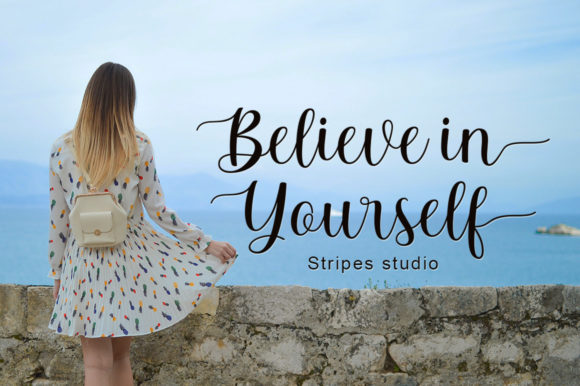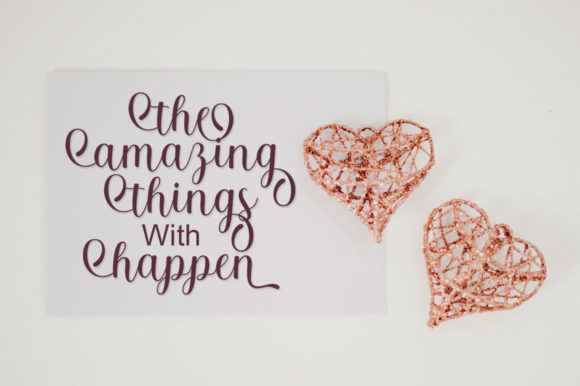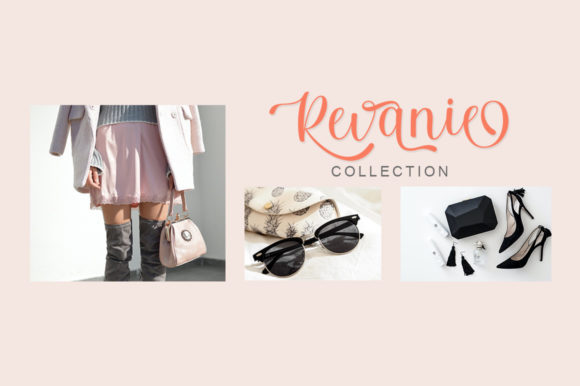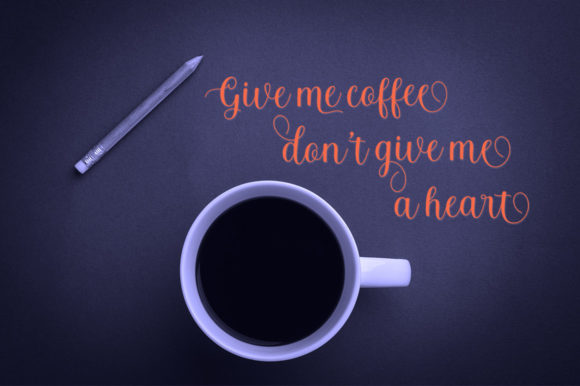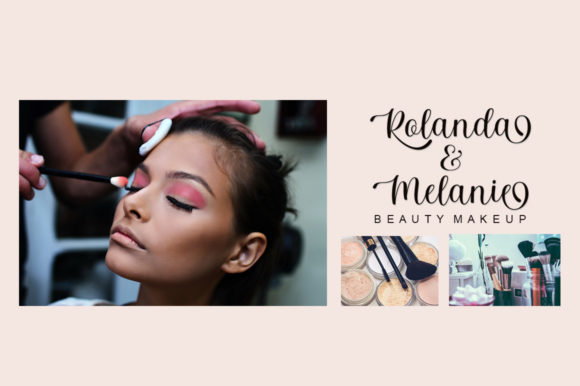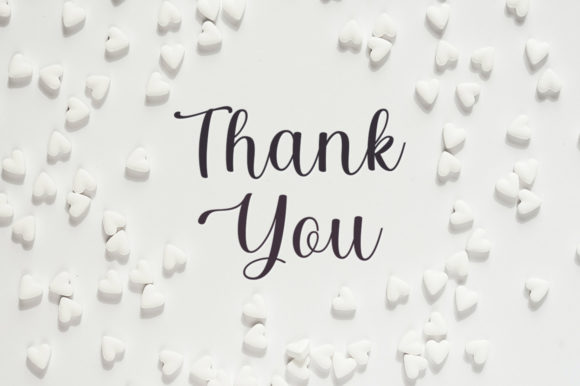
Introduction to Revanie Font
Have you ever found yourself stuck on a creative project, searching for the perfect font to bring your vision to life? The hours tick by, and still, that perfect combination of elegance and sophistication eludes you. But what if I told you that there’s a font that can elevate your design to new heights? Welcome to the world of Revanie Font, a stunning script font that embodies the perfect blend of classic calligraphy and modern style.
As a designer, you understand the importance of a high-quality font in making your project shine. Revanie Font is designed to add a touch of sophistication to any design, whether it’s a logo, a brochure, or a social media graphic. With its balanced and varied strokes, this font is sure to captivate your audience and leave a lasting impression. And the best part? It’s available for free download, making it a valuable resource for designers of all levels.
Key Features of Revanie Font
• High-quality design resource ideal for creative projects
• Unique, modern font style suitable for a wide range of creative applications
Honest Review: Revanie Font
As a designer, I’m always on the lookout for high-quality fonts that can elevate my creative projects. The Revanie Font is one such find that has impressed me with its unique style and versatility.
What works well: ✨ The Revanie Font has a beautiful, modern design that’s perfect for a wide range of creative projects, from digital products to print materials. Its clean lines and elegant script make it a great choice for designers looking to add a touch of sophistication to their work.
• High-quality design: The Revanie Font is a well-crafted font that’s perfect for designers who want a professional-looking result.
However, I did encounter some limitations: ⚠️ The font doesn’t support a wide range of languages, which might be a drawback for designers working on multilingual projects.
Overall, I’m impressed with the Revanie Font’s design and versatility. It’s a great addition to any designer’s toolkit, especially for those working on creative projects that require a high level of sophistication and style.
The Revanie Font is a high-quality, free design resource ideal for any creative project that requires a unique and sophisticated look. With its transparent background and versatile style, it’s perfect for designers and non-designers alike.
Getting the Most Out of Revanie Font
To get the most out of the Revanie Font, try using it in combination with other design elements, such as bold colors and textures, to create a visually appealing design. Experiment with different font sizes and styles to add depth and interest to your project.
The Revanie Font is perfect for:
• Creating a professional-looking logo or branding material
• Designing a wedding invitation or other special occasion graphics
• Adding a touch of elegance to a presentation or document